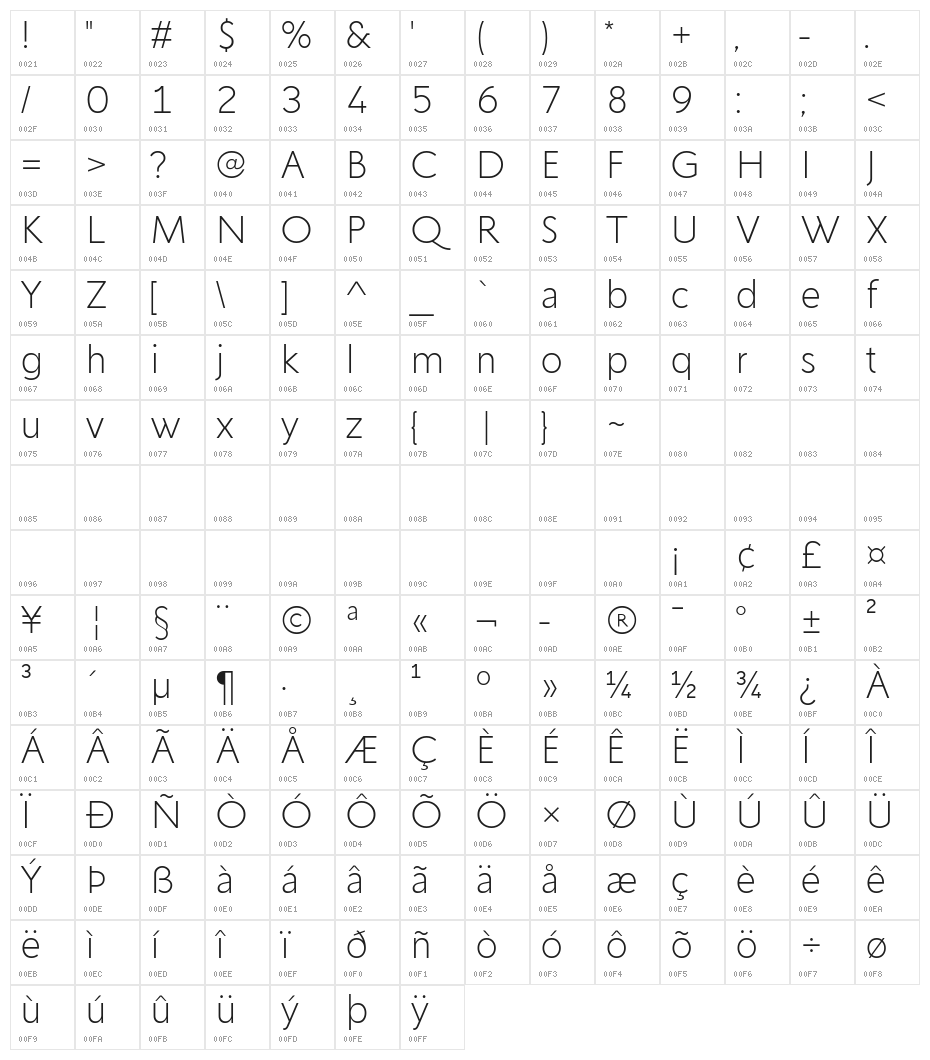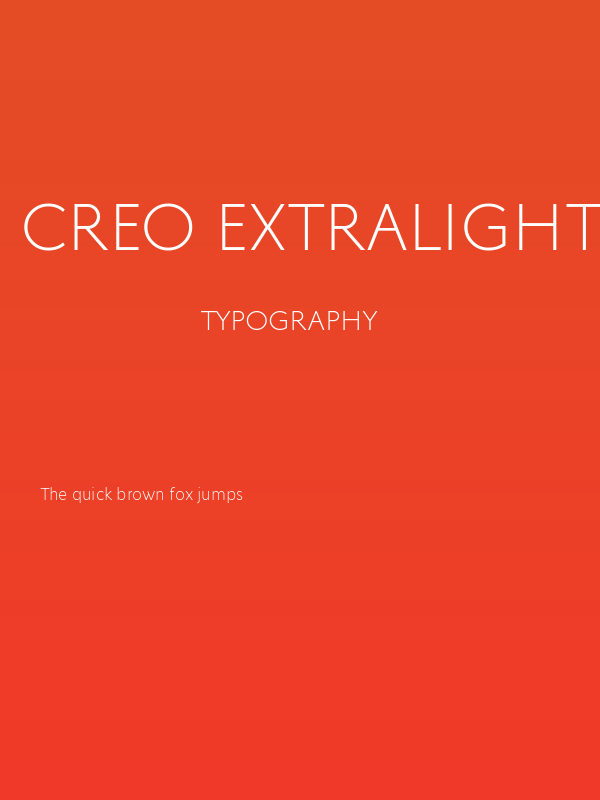
Creo ExtraLight Font
Creo ExtraLight Description
This font features a clean and modern sans-serif style with an extra light weight, providing an airy and minimalist appearance. The characters are well-proportioned, with a consistent stroke width that enhances readability. The uppercase and lowercase letters maintain a harmonious balance, while the numerals are clear and straightforward. Special characters are designed with simplicity in mind, ensuring they blend seamlessly with the overall aesthetic. This font's design is ideal for projects that require a contemporary and uncluttered look.
| Proposed Projects | Ideal for branding, web design, editorial layouts, and minimalist graphic design projects. |